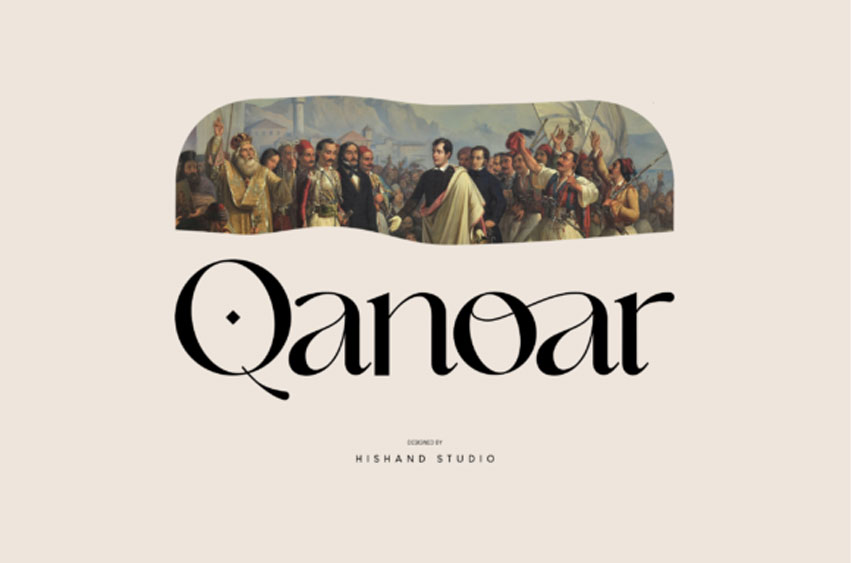
Qanoar Font
Qanoar Font is a modern and trendy-looking serif font. This font is PUA encoded, which means you can access all of the glyphs and swashes with ease!